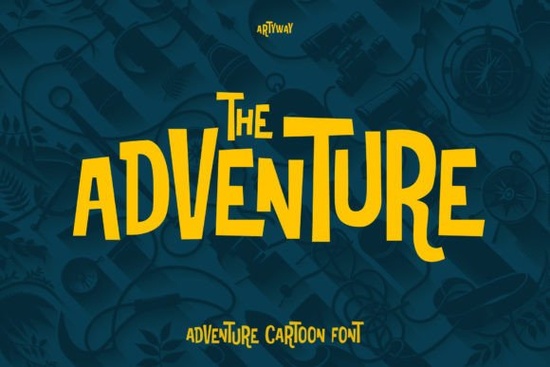
If you're looking for a friendly, energetic typeface that works well for kids’ projects, playful branding, or lighthearted print-on-demand designs, the Adventure Font officially named Adventure Cartoon is worth considering. It’s not overly technical or rigid; instead, it’s built around charm and character. Each letter has subtle quirks slightly uneven baselines, rounded corners, and expressive curves that give text a hand-drawn, cheerful feel without sacrificing readability.
Who is this font actually good for?
It’s especially helpful if you design for young audiences: think birthday invitations, classroom posters, sticker sheets, or nursery decor. Small business owners creating custom T-shirts, tote bags, or enamel pins also find it useful when they want something more distinctive than standard sans-serifs but still clean enough to scale well on fabric or vinyl. Crafters using Cricut or Silhouette machines appreciate how clearly the letters cut, thanks to generous spacing and sturdy strokes.
Unlike some cartoon-style fonts that sacrifice legibility at smaller sizes, Adventure Cartoon holds up well from 16pt to 72pt. That makes it flexible across digital and physical formats whether you’re laying out an Instagram story or printing a 24x36" wall poster.
What languages and characters does it support?
The font includes full Latin character sets, covering English, Spanish, French, German, Italian, Portuguese, Dutch, and several Eastern European languages. You’ll also get common punctuation, numerals, basic math symbols, and accented characters like ñ, ü, and ç. That means you can use it confidently for bilingual kids’ books or multilingual craft labels without needing fallback fonts.
There are no ligatures or stylistic alternates built in so it’s straightforward to use in Canva, Adobe Express, or even basic word processors. If you need extra flexibility, pairing it with a clean companion like Cloud Font or Vosage Font creates nice contrast: one playful, one grounded.
How does it compare to similar playful sans-serifs?
Compared to other adventure-themed fonts, this one leans less into “explorer” tropes (like compass motifs or rugged edges) and more into warm, inclusive fun. It doesn’t try to mimic handwriting, so it feels intentional not rushed or amateurish. That helps it stand out among trendier display fonts that age quickly.
It’s also lighter in visual weight than something like Mirano Extended, which makes it easier to layer over photos or busy backgrounds. And unlike many novelty fonts, it doesn’t rely on excessive swashes or decorative elements so it scales down cleanly for product tags or app UI buttons.
Where do people actually use it?
- Kids’ party supplies: Invitations, cupcake toppers, and photo booth props
- Educational printables: Flashcards, sight-word posters, and behavior charts
- Small-batch merch: Organic cotton onesies, wooden puzzles, and reusable lunchbox stickers
- Digital products: Canva templates, Notion planners with themed headers, and printable reward charts
One user shared that they used Adventure Cartoon for a set of bilingual emotion cards (English + Spanish) aimed at preschool teachers and reported fewer readability complaints from educators than with flashier alternatives. Another small shop owner said it helped their “Adventure Squad” line of hiking-themed kids’ apparel feel cohesive across packaging, website banners, and social posts.
Test it with your most common use case first: paste a short phrase into your design tool at the size you’ll actually use it. Try both light and dark backgrounds. If you’re planning to cut it with a machine, turn on “outline” mode to check for any thin joins or tiny islands that might break during cutting. And remember it’s a single-style font (no bold/italic variants), so pair it intentionally with a neutral sans-serif if you need hierarchy.